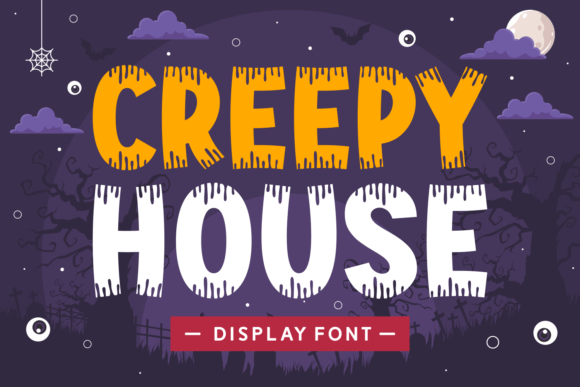
Unleash the Spooky Spirit with Creepy House Font
For designers looking to add a touch of eerie elegance to their Halloween designs, we have just the thing: Creepy House Font. This fun and quirky display font is perfect for capturing the essence of the spooky season. With its decorative drippings and festive flair, it’s a must-have for any designer looking to take their Halloween projects to the next level.
Creepy House Font Key Features
- Font Family: Creepy House Font is a unique, horror-themed font designed to evoke a sense of eeriness and foreboding.
- Unique Characteristics: The font features distressed and worn textures, with a distressed look that adds to its creepy and horror theme.
Designer Review: Creepy House Font
At first glance, the Creepy House Font is an intriguing choice for designers looking to create a mysterious atmosphere in their projects. ✨ Its unique, handwritten style and irregular letterforms are sure to catch the eye.
The font does a great job of evoking a sense of eeriness and foreboding, making it perfect for Halloween-themed designs or horror movies. The font’s imperfections and quirks add to its charm, giving it a handmade feel that’s hard to find in more polished fonts.
- ⚠️ Limited legibility: The font’s irregular shape and lack of standardization make it difficult to read at larger font sizes or in smaller contexts.
- ⚠️ Limited font families: The font only comes in a single style, which may limit its versatility in different design applications.
Overall, the Creepy House Font is a unique and captivating choice for designers looking to create a spooky atmosphere. While it may have its limitations, its charm and character make it a great addition to any designer’s toolkit.
Tips for Getting the Most Out of “Creepy House Font”
Use “Creepy House Font” to create a spooky atmosphere in your designs. You can pair it with other creepy fonts to create a cohesive look. Experiment with different font sizes, colors, and styles to achieve the desired effect.
“Creepy House Font” is ideal for Halloween-themed designs, horror movie posters, and spooky invitations. You can also use it to add a touch of eeriness to your everyday designs, such as social media graphics and blog posts.
Are there any font pairing recommendations for the Creepy House Font?
For a cohesive look, we recommend pairing the Creepy House Font with other fonts that have a similar aesthetic or mood. Some popular pairing options include fonts with distressed, vintage, or horror-inspired themes. You can also experiment with pairing the Creepy House Font with sans-serif fonts for a clean and modern contrast.